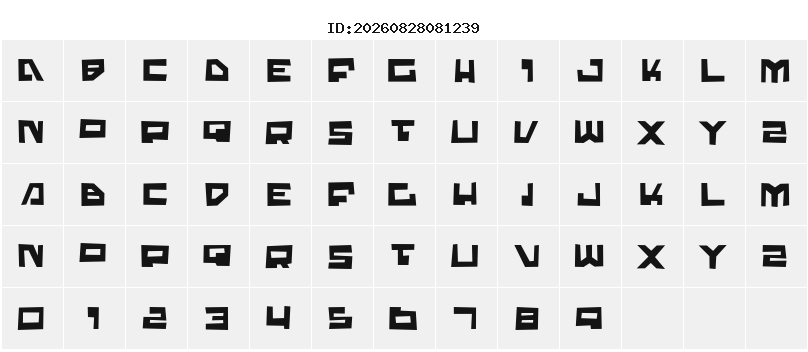
Trajia Trash Preview
• Font Name: Trajia Trash
• Font Style: Trash
• Full Font Name: Trajia Trash
About Trajia Trash.ttf
Trajia Trash.ttf is a modern, elegant sans-serif font designed for ultimate readability and visual harmony. Perfect for branding, headlines, web design, and print materials.